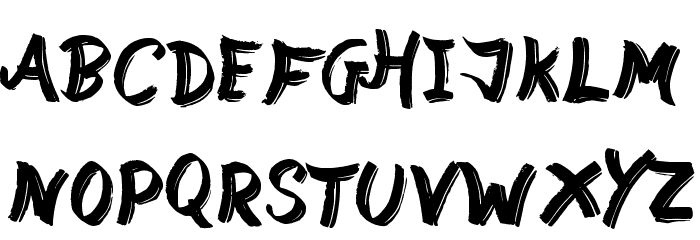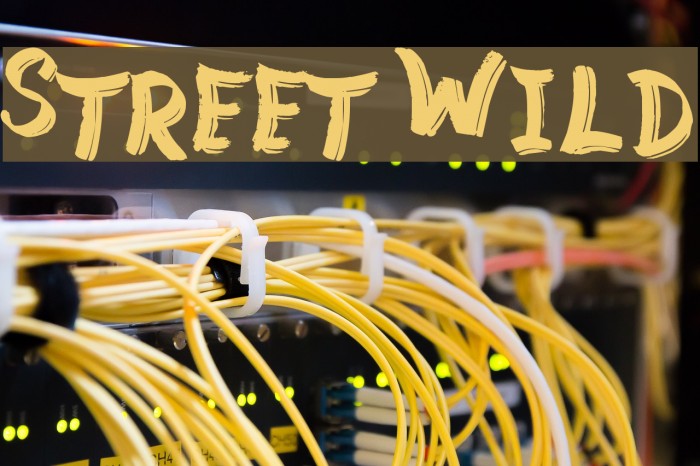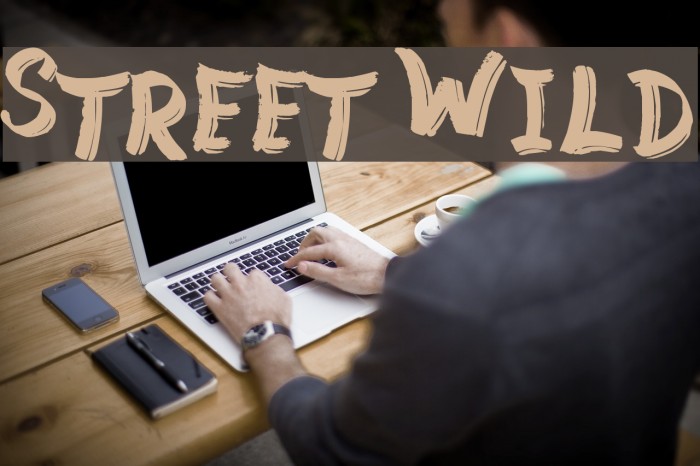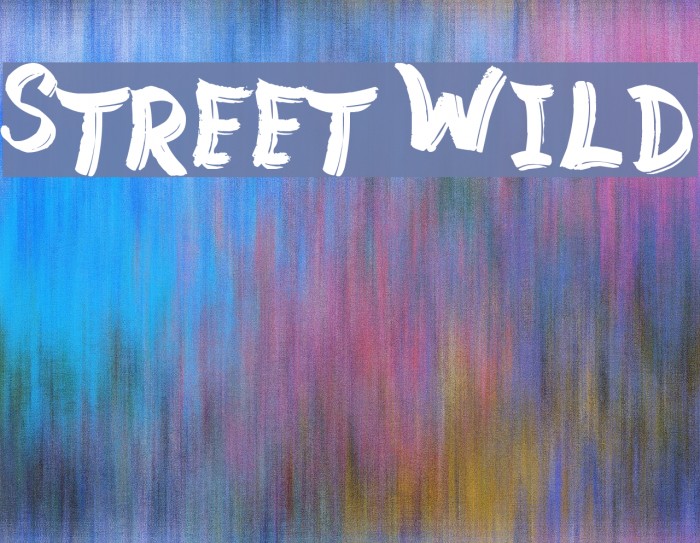
Street Wild Font
This font exhibits a bold and expressive style, characterized by its brush-like strokes and dynamic movement. The letters have an energetic and raw appearance, reminiscent of street art or graffiti. The uppercase and lowercase characters maintain a consistent style, with exaggerated curves and sharp angles that add to its edgy and rebellious feel. The numbers and special characters follow the same artistic approach, making the font suitable for creative and unconventional designs.
A bold, brush-style font with an energetic, street-art vibe.
- Proposed Projects: Ideal for urban-themed posters, album covers, graffiti-inspired designs, and edgy branding projects.
- Overall Style: Modern, Urban, Edgy